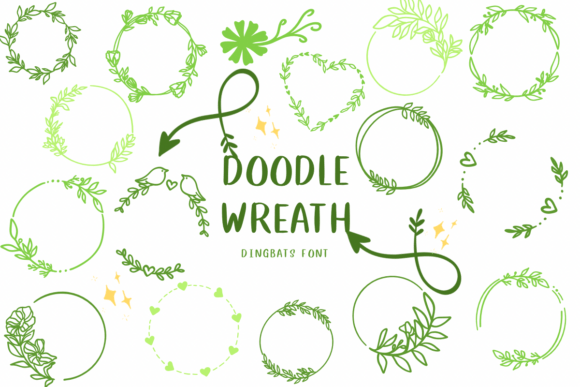
Doodle Wreath Font: Elevate Your Creative Projects with a Decorative Touch
The Doodle Wreath Font is a unique and creative dingbats font that can add a decorative touch to your projects. With its intricate and beautiful design, this font is perfect for a variety of creative endeavors, including wedding invitations, DIY crafts, decorations, logos, and more. In this article, we’ll explore the features and benefits of the Doodle Wreath Font and show you how to incorporate it into your projects.
What is a Dingbats Font?
A dingbats font is a type of font that features decorative symbols, shapes, and designs rather than traditional letters and numbers. Dingbats fonts are often used to add visual interest and creativity to projects, and they can be used in a variety of contexts, from graphic design to crafting.
Features of the Doodle Wreath Font
The Doodle Wreath Font is a dingbats font with a decorative theme that features intricate and beautiful designs. Some of the key features of this font include:
- Unique and creative designs: The Doodle Wreath Font features a range of unique and creative designs, including wreaths, flowers, and other decorative elements.
- High-quality graphics: The font is made up of high-quality graphics that are perfect for printing and digital use.
- Versatile: The font can be used in a variety of contexts, from wedding invitations to DIY crafts and decorations.
Benefits of Using the Doodle Wreath Font
There are many benefits to using the Doodle Wreath Font in your projects. Some of the key benefits include:
- Adds a decorative touch: The Doodle Wreath Font adds a decorative touch to your projects, making them more visually appealing and creative.
- Increases creativity: The font’s unique and creative designs can inspire creativity and help you think outside the box.
- Perfect for special occasions: The font is perfect for special occasions, such as weddings, anniversaries, and birthdays.
- Easy to customize: The font can be easily customized to fit your needs, including changing the color and size.
Using the Doodle Wreath Font in Your Projects
The Doodle Wreath Font can be used in a variety of projects, including:
- Wedding invitations: The font is perfect for wedding invitations, adding a decorative and romantic touch.
- DIY crafts: The font can be used in DIY crafts, such as making cards, gift tags, and other decorative items.
- Decorations: The font can be used to create decorations, such as garlands, banners, and other decorative elements.
- Logos: The font can be used to create logos, adding a creative and decorative touch to your brand.
Tips and Tricks for Using the Doodle Wreath Font
Here are some tips and tricks for using the Doodle Wreath Font in your projects:
- Experiment with different colors: The font looks great in a variety of colors, so don’t be afraid to experiment and find the perfect color for your project.
- Mix and match designs: The font features a range of designs, so try mixing and matching them to create a unique look.
- Use it with other fonts: The Doodle Wreath Font can be used with other fonts to create a unique and creative look.
- Make it digital: The font can be used to create digital projects, such as social media graphics and blog posts.
The Doodle Wreath Font is a unique and creative dingbats font that can add a decorative touch to your projects. With its intricate and beautiful designs, this font is perfect for a variety of creative endeavors, including wedding invitations, DIY crafts, decorations, logos, and more. Whether you’re a graphic designer, crafter, or DIY enthusiast, the Doodle Wreath Font is a great addition to your toolkit.
- What is the Doodle Wreath Font? The Doodle Wreath Font is a dingbats font with a decorative theme that features intricate and beautiful designs.
- What can I use the Doodle Wreath Font for? The font can be used in a variety of projects, including wedding invitations, DIY crafts, decorations, logos, and more.
- Can I customize the Doodle Wreath Font? Yes, the font can be easily customized to fit your needs, including changing the color and size.